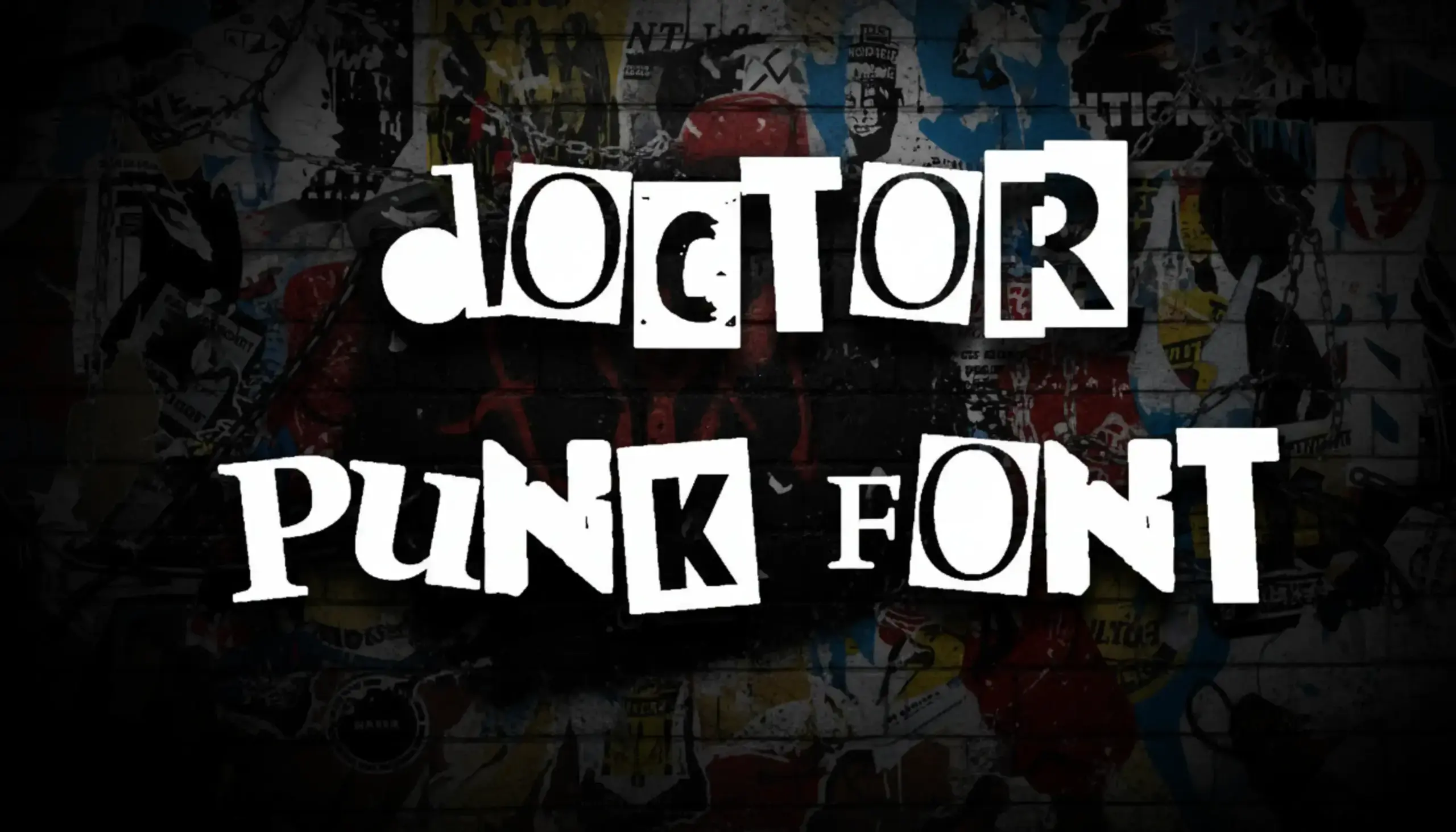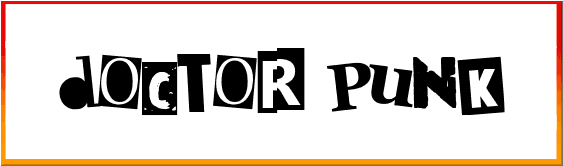
Doctor Punk Font
Doctor Punk
Doctor Punk is a fancy font. Bold and full of character, it's built to stand out rather than blend in. You can download it for free and test it with your own words in the preview above.
What You Can Type With Doctor Punk
Doctor Punk covers the full alphabet in upper and lowercase, plus all ten numbers, so you can set names, dates and prices without switching fonts. Common punctuation such as &, !, ? and @ is included as well. It also has the accented letters you need for Spanish, French, German, Portuguese and Italian.
Where Doctor Punk Works Best
Think of Doctor Punk for posters, logos and eye-catching headlines. Use it for one standout word or headline and let simpler fonts handle the rest.
Does Doctor Punk support accented letters?
Yes. Doctor Punk includes the accented letters needed for Spanish, French, German, Portuguese and Italian, so it works for more than just English.